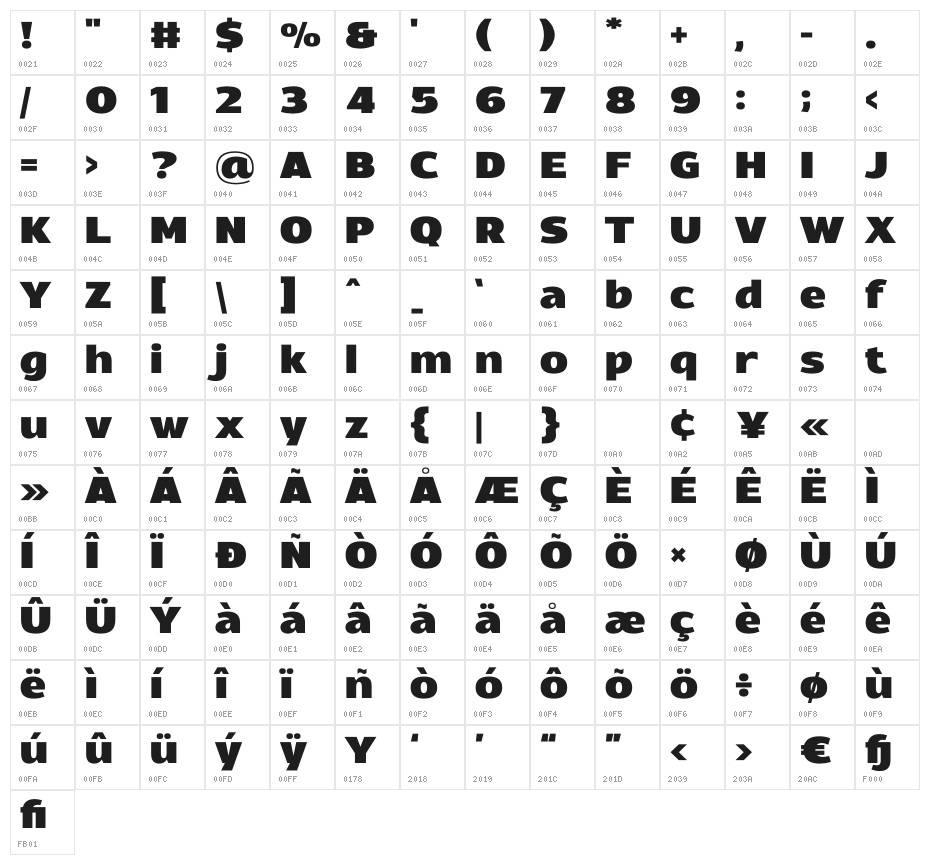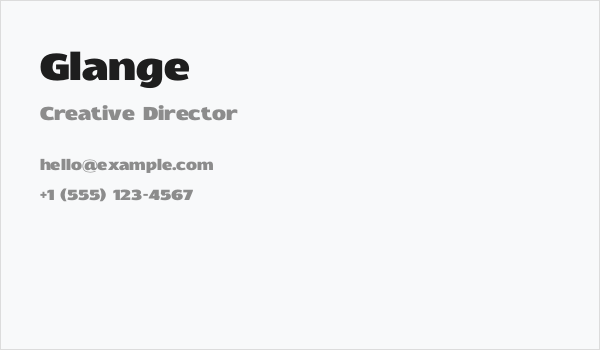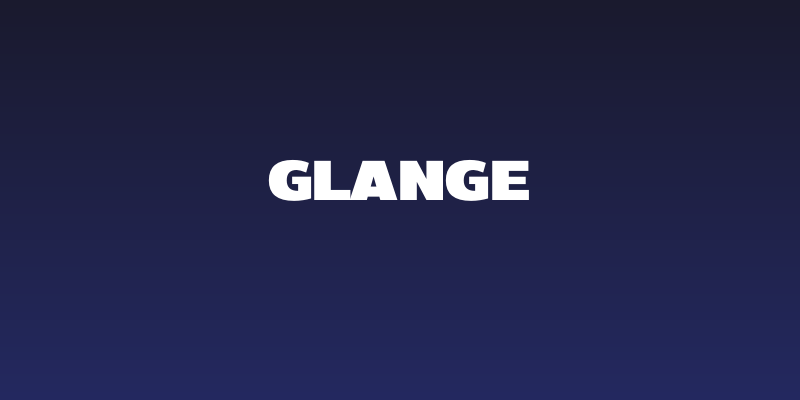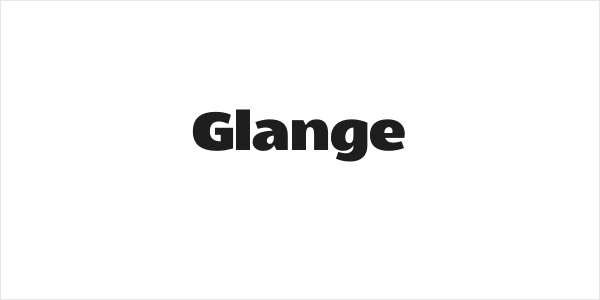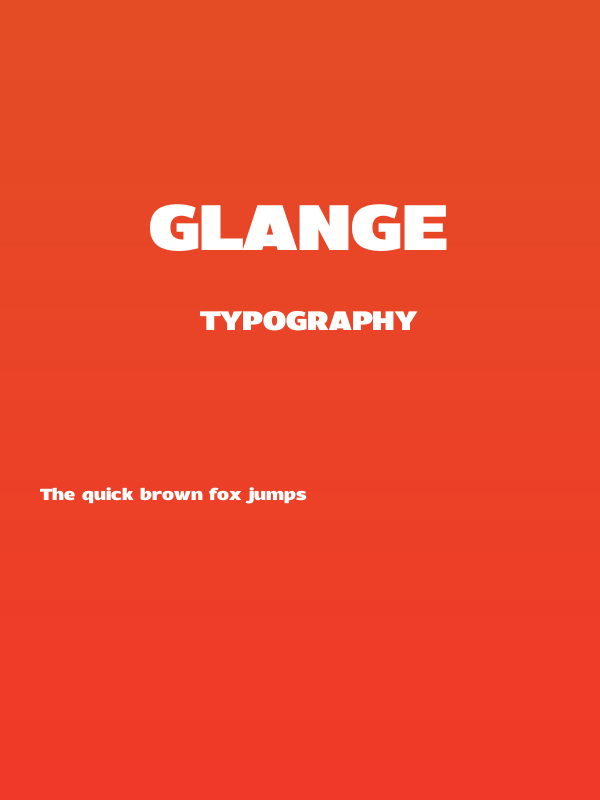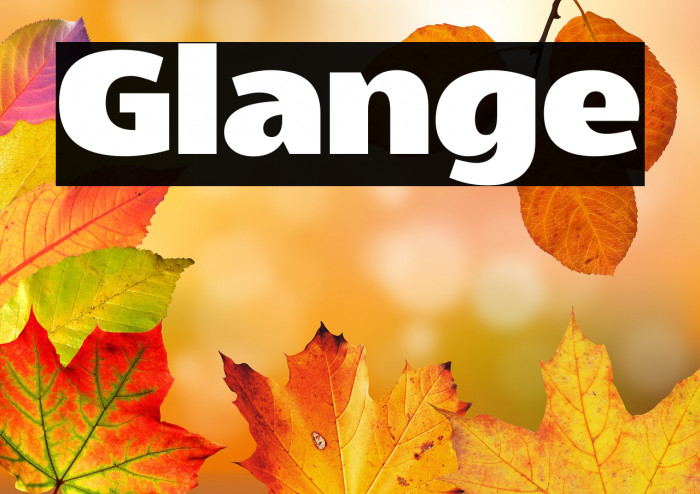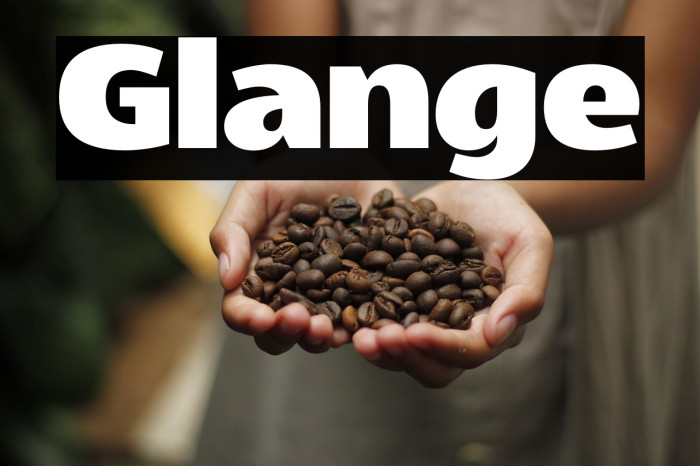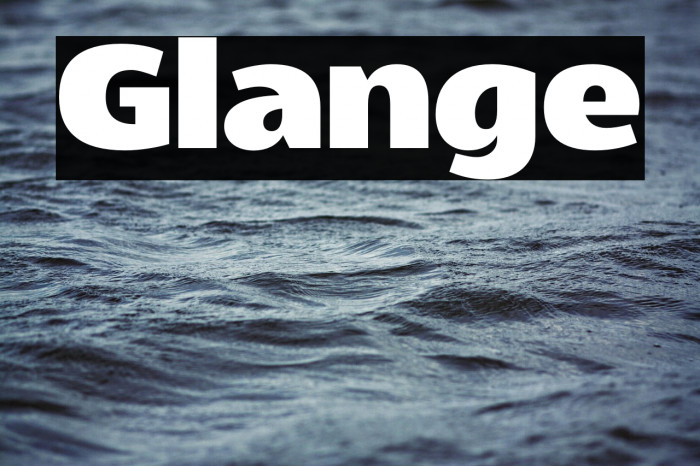
Glange Font
Glange Description
This font features bold, robust characters with a strong presence, making it ideal for attention-grabbing headlines and impactful designs. The letters are uniformly thick, providing a sense of stability and confidence. The uppercase and lowercase letters maintain a consistent weight, ensuring readability and visual harmony. The numerals and special characters are designed to match the boldness of the alphabet, creating a cohesive look across all elements. The overall style is modern and assertive, suitable for projects that require a commanding visual statement.
| Proposed Projects | This font is perfect for branding, advertising campaigns, poster designs, and any project requiring a bold, modern aesthetic. |